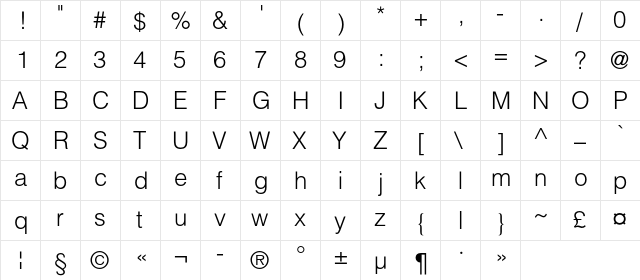
HeliosLightC Regular Font Preview
HeliosLightC Regular
Design Context for HeliosLightC Typeface
HeliosLightC takes a measured approach to typography — its balanced proportions and neutral character make it a reliable workhorse for both digital and print work. The delicate stroke weight brings airiness and refinement to layouts.